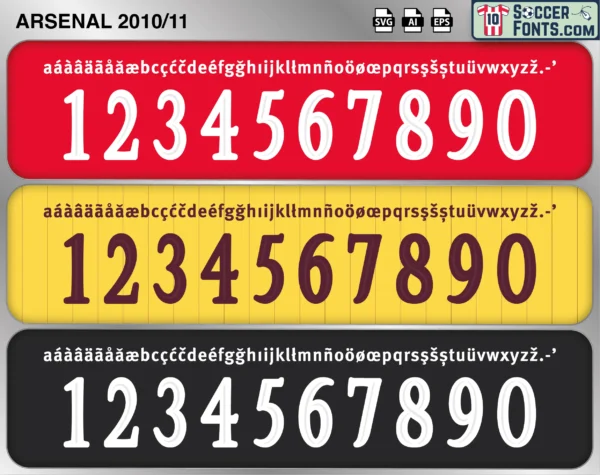
Arsenal 2010-11 Font
The Arsenal 2010-11 font is an editable soccer jersey lettering design in vector format inspired by the Arsenal kit style used during the 2010-11 football season. This football font artwork is prepared for football shirt recreations, custom jersey projects, football kit mockups and sports graphic design workflows.
The 2010-11 season represented one of the most recognizable late-Wenger eras at Arsenal, combining technical attacking football, UEFA Champions League nights and one of the Premier League’s youngest squads. Arsenal featured players such as Cesc Fàbregas, Robin van Persie, Samir Nasri, Jack Wilshere, Theo Walcott and Andrey Arshavin during a period strongly associated with possession football and creative midfield play. The season included memorable domestic and European matches, particularly Arsenal’s dramatic UEFA Champions League victory against Barcelona at the Emirates Stadium during the knockout stages.
The Arsenal 2010-11 font became associated with early-2010s Premier League football culture and one of the most aesthetically recognizable Arsenal eras of the modern football period. Arsenal football shirts from this season remain especially popular among retro football shirt collectors and supporters because of their connection with Arsène Wenger’s football philosophy, Champions League football and a generation of technically gifted players who became strongly linked with Arsenal’s identity during the era. The 2010-11 season also remains closely connected with classic Emirates Stadium football culture before the club entered a major transitional period later in the decade.